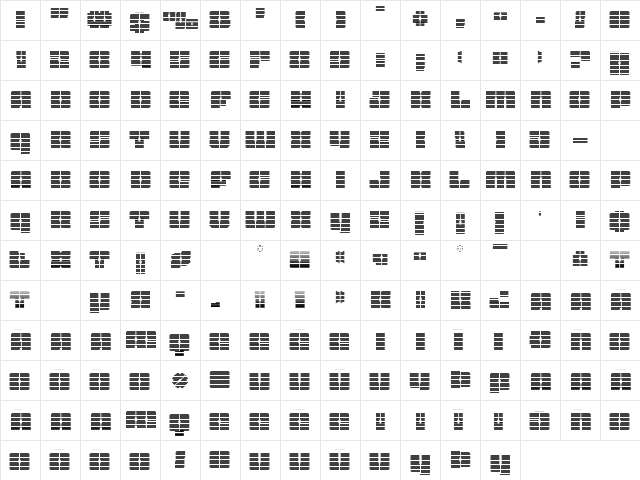
Star Nursery Gradient Regular
Design Context for Star Nursery Gradient Typeface
Star Nursery Gradient is a composed and adaptable typeface that performs quietly and consistently across a wide range of design contexts.